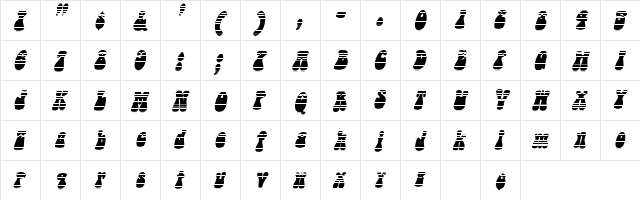
Sargoo Regular
Design Context for Sargoo Typeface
Sargoo is a composed and adaptable typeface that performs quietly and consistently across a wide range of design contexts.